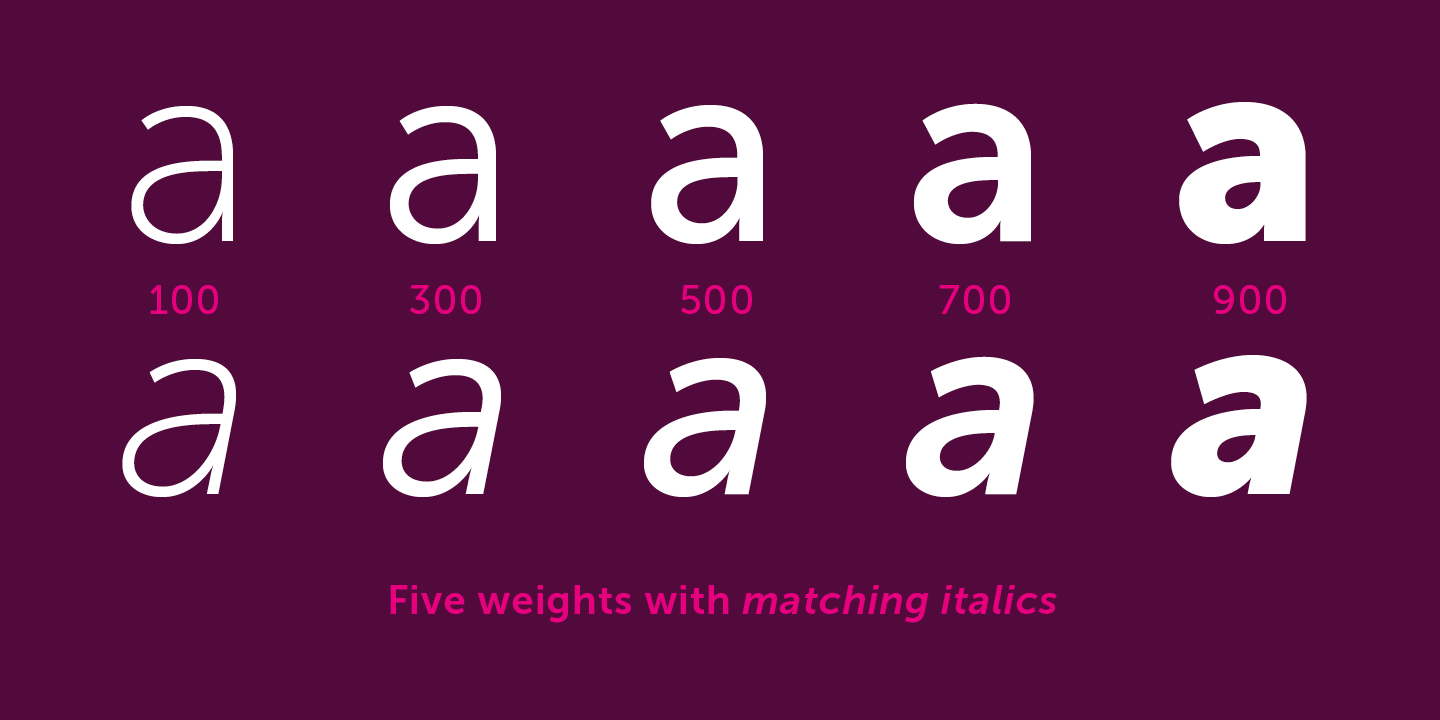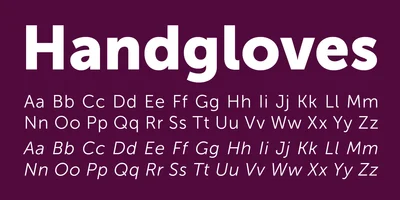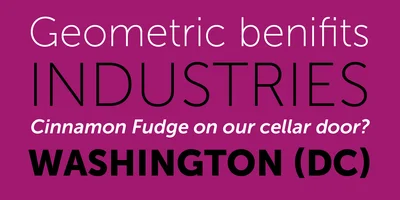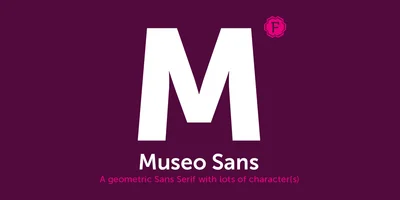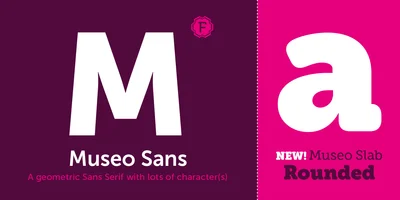
Museo Sans vs Sofia Pro
Museo Sans and Sofia Pro are both sans-serif typefaces sharing a geometric foundation. Where Museo Sans leans elegant, Sofia Pro brings rounded, warm. Compare which suits your Branding project.
Museo Sans
Sofia Pro
Museo Sans
Sofia Pro
| Feature | Museo Sans | Sofia Pro |
| Language Support | latin, latin-extended, cyrillic | latin, latin-extended, cyrillic |
| Source | Exljbris | Mostardesign |
Where You'll See These Fonts
Museo Sans
- Tech startup branding
- SaaS applications
- Corporate presentations
- Web interfaces
- Marketing materials
Sofia Pro
- Mobile apps
- Startup branding
- E-commerce sites
- Healthcare apps
- Consumer products
Recommended: Museo Sans
- elegant design character
- Suited for Corporate and Editorial
- From Exljbris
Consider: Sofia Pro
- rounded, warm design character
- Suited for Apps and Packaging
- From Mostardesign